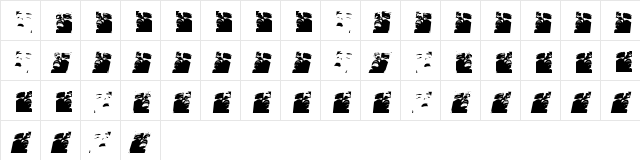
CryArgentina Regular
Design Context for CryArgentina Typeface
CryArgentina is a composed and adaptable typeface that performs quietly and consistently across a wide range of design contexts.